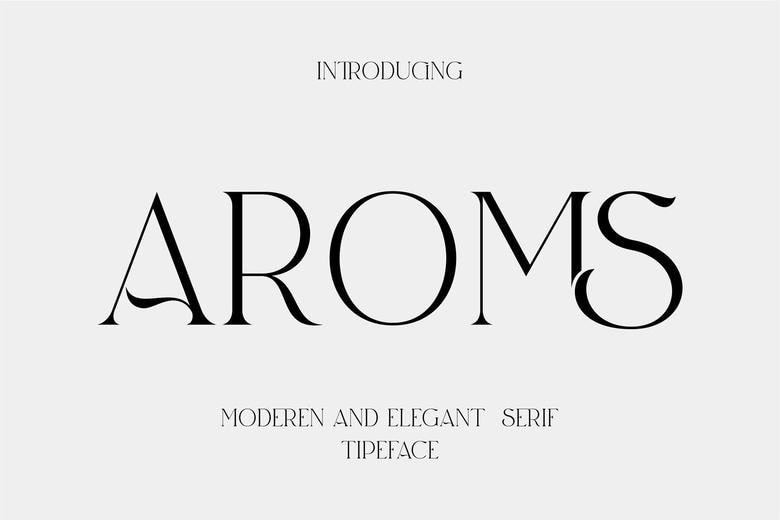
Aroms Font
AROMS is a serif font with a modern look and stylish details. Its design and special ligatures have made it popular with many users. We focused on keeping it elegant, classy, and stylish.
Poina is a great choice for cosmetics, beauty brands, logos, magazines, books, business cards, social media, and other creative projects. It is designed to help your work stand out.
Aroms Serif Font